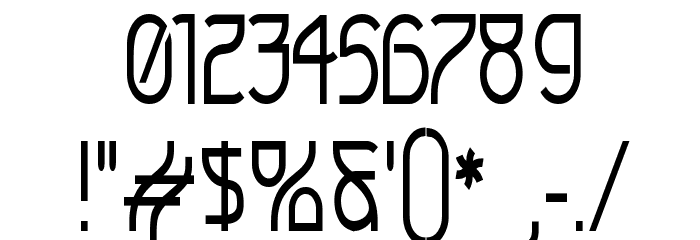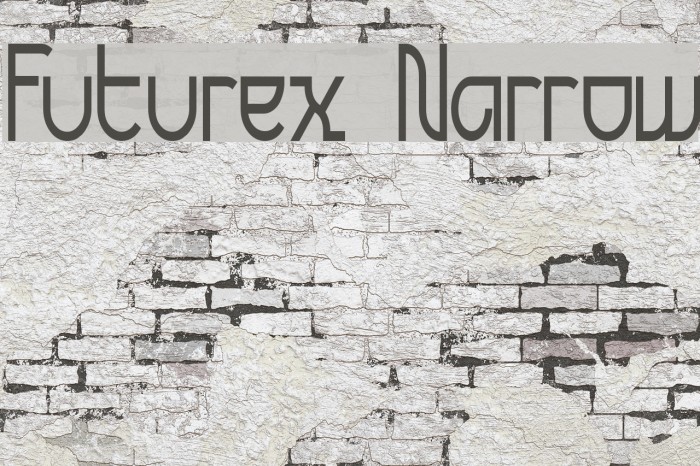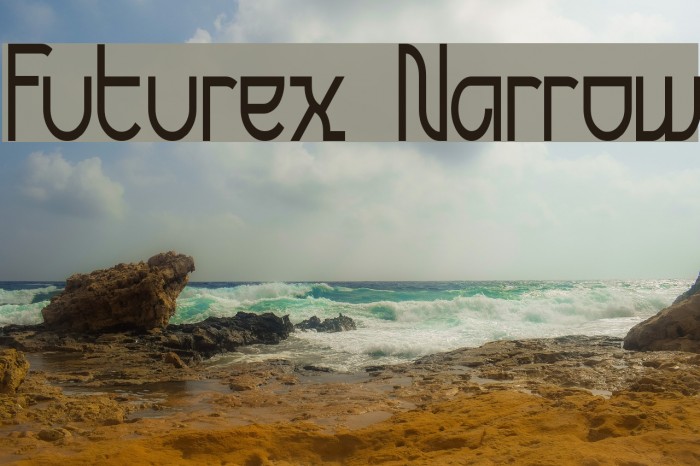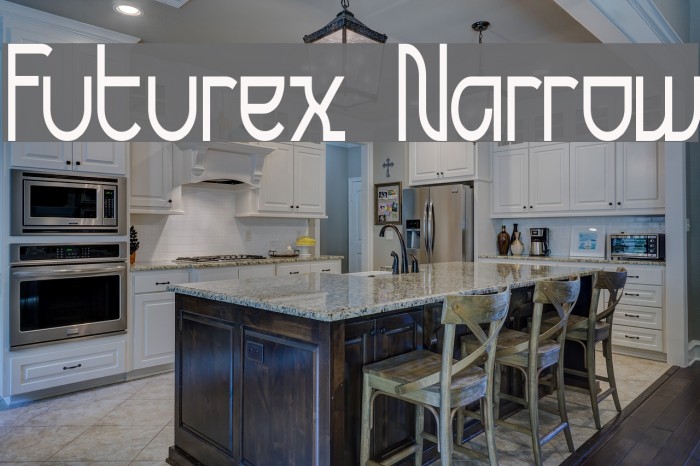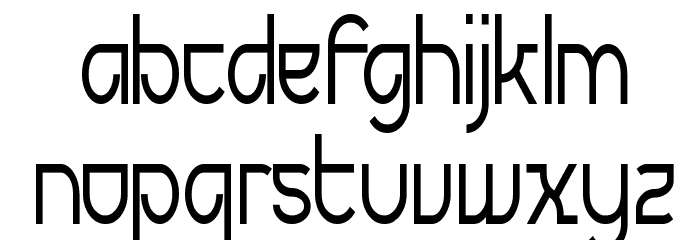
Futurex Narrow Font
Futurex Narrow Description
This font features a futuristic and geometric design with narrow, elongated characters. The uppercase letters are tall and maintain a consistent height, while the lowercase letters are slightly shorter, maintaining a uniform appearance. The numbers are distinct and align well with the overall style, providing a modern and sleek look. Special characters are designed to match the font's aesthetic, ensuring cohesion across all elements. The clean lines and minimalistic approach make it suitable for contemporary designs.
| Use Case | Headlines, Logos, Digital interfaces |
| Proposed Projects | Ideal for technology branding, sci-fi themed projects, modern posters, and digital interfaces. |